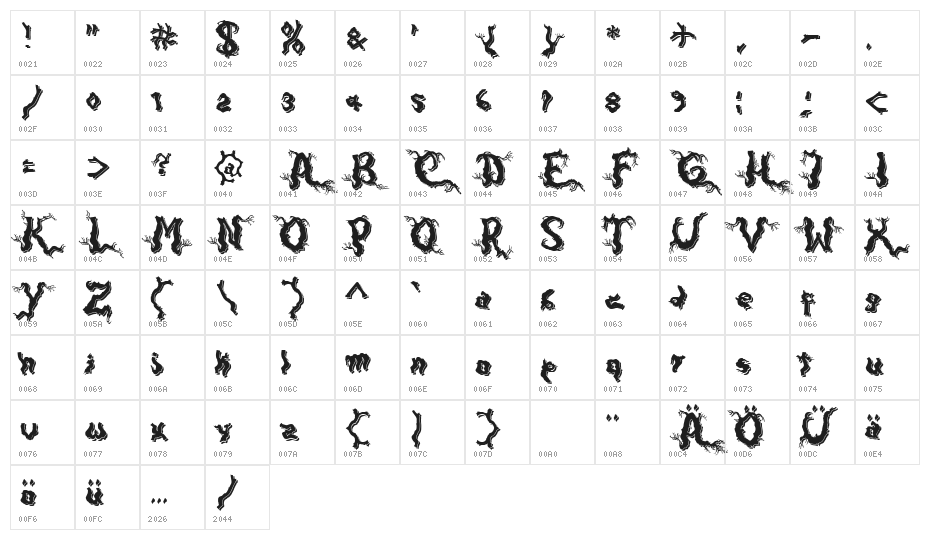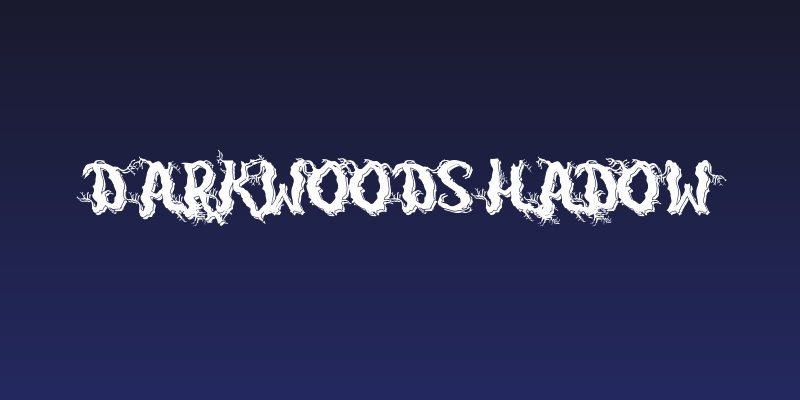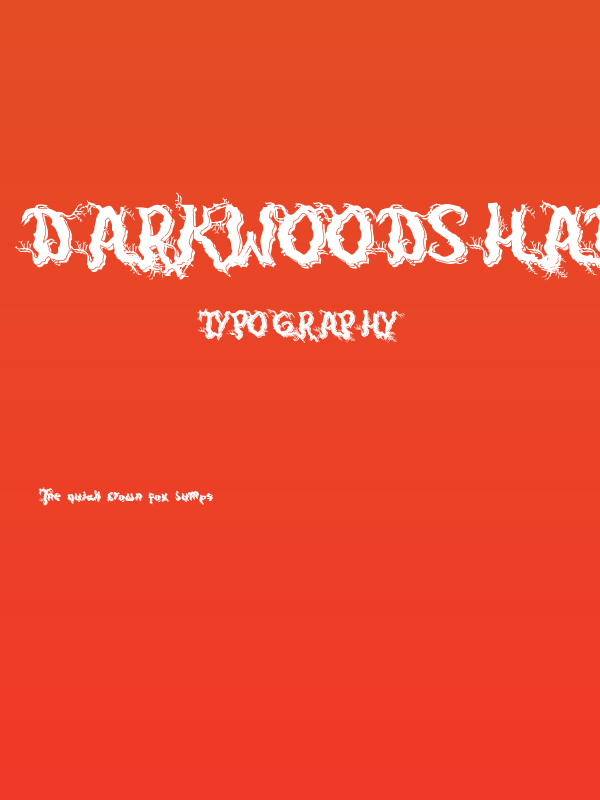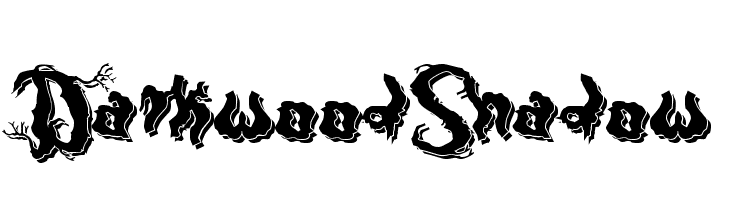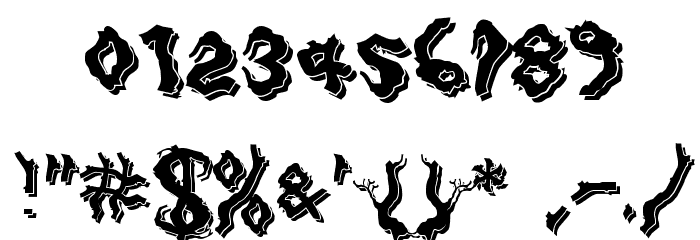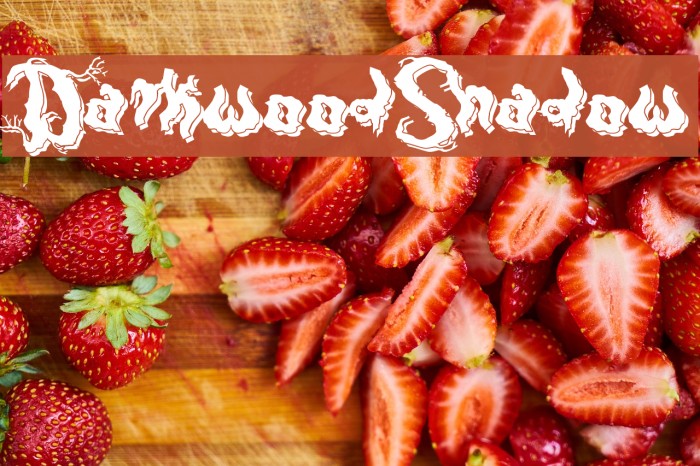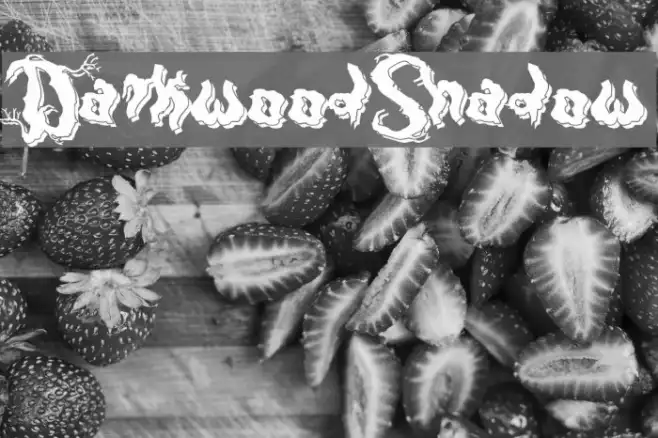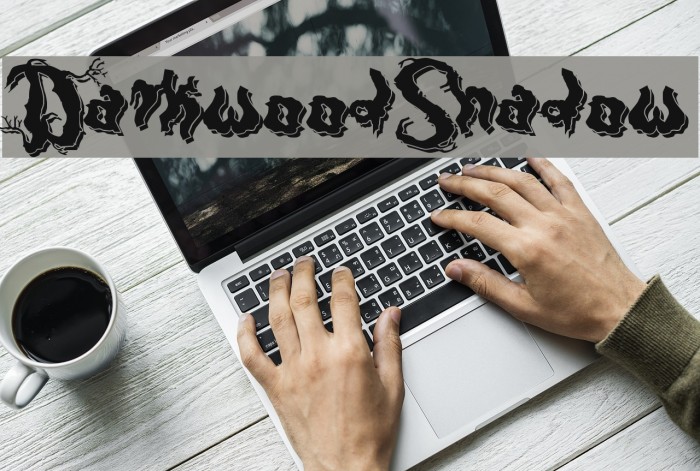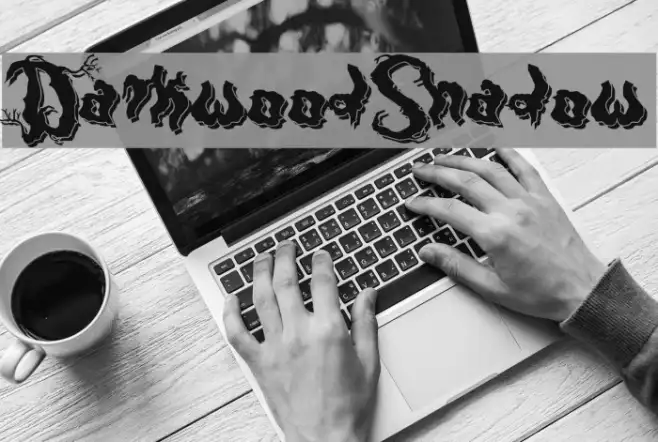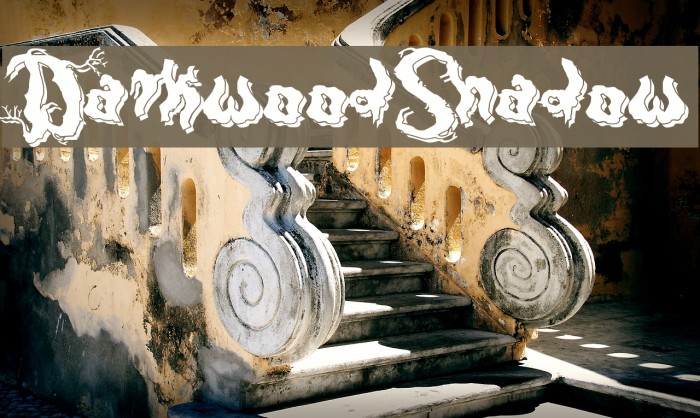
DarkwoodShadow Font
DarkwoodShadow Description
This font features a unique and intricate design, reminiscent of twisted branches and shadows, creating a mysterious and eerie aesthetic. The characters are bold and highly decorative, with each letter appearing as if it is part of a dark, enchanted forest. The uppercase and lowercase letters maintain a consistent theme, with jagged edges and organic shapes that mimic natural elements. Numbers and special characters follow the same stylistic approach, ensuring a cohesive look across all glyphs. This font is perfect for projects that require a touch of the supernatural or a gothic atmosphere.
| Proposed Projects | Ideal for Halloween-themed designs, fantasy book covers, horror movie posters, and gothic event invitations. |